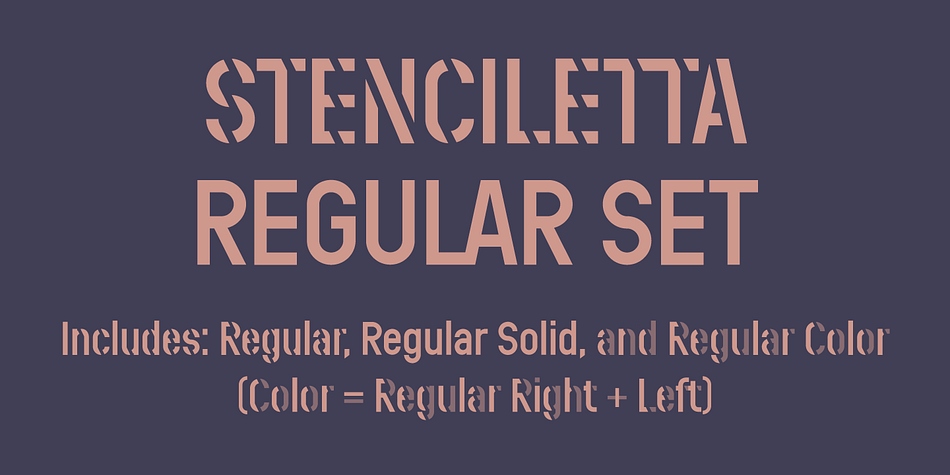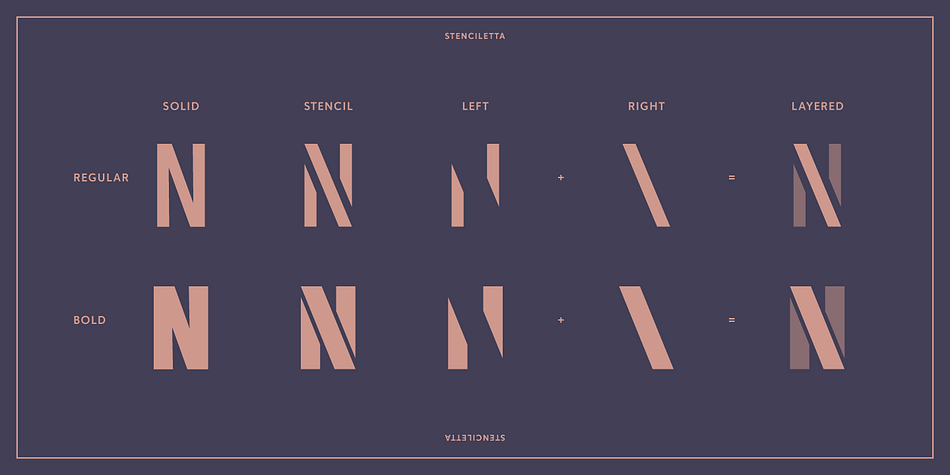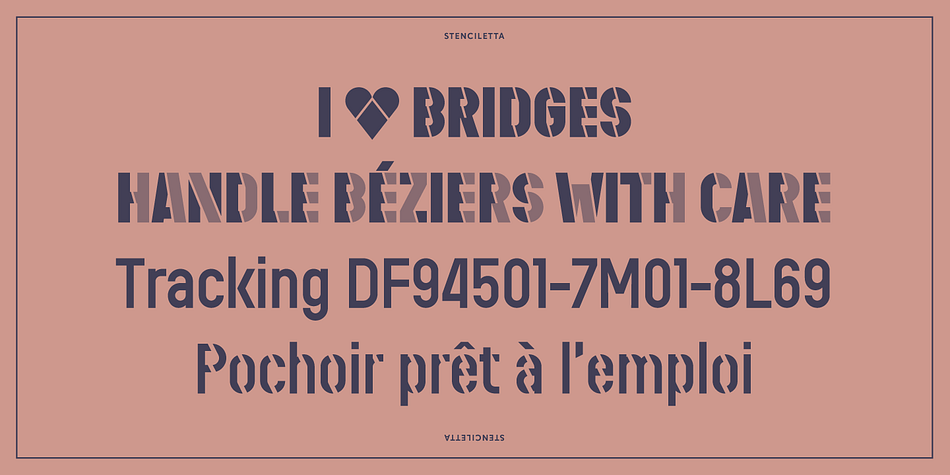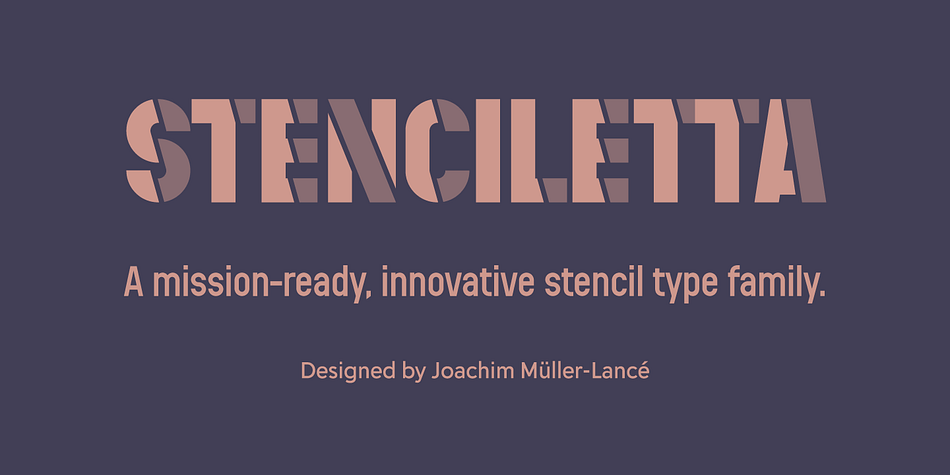
Designed by Joachim Müller-Lancé, Stenciletta is a display sans and stencil font family. This typeface has eight styles and was published by Delve Fonts.
Stenciletta by Joachim Müller-Lancé is a mono-linear type design with bridges (the little gaps) placed where thinner lines would otherwise be. Evoking an air of mechanical engineering, construction, and cargo shipping, the distinctive slanted bridges of Stenciletta are parallel to the downstrokes, lending an interesting consistent texture somewhat like diagonal stripes.
Embracing the endearing aesthetic of having been created by engineers, like many early signage alphabets were, Stenciletta is constructed strictly from circles and straights in a limited set of angles on a square grid, without overshoot.
The Stenciletta family includes Regular and Bold weights with two-color and solid versions of both weights (eight fonts total).